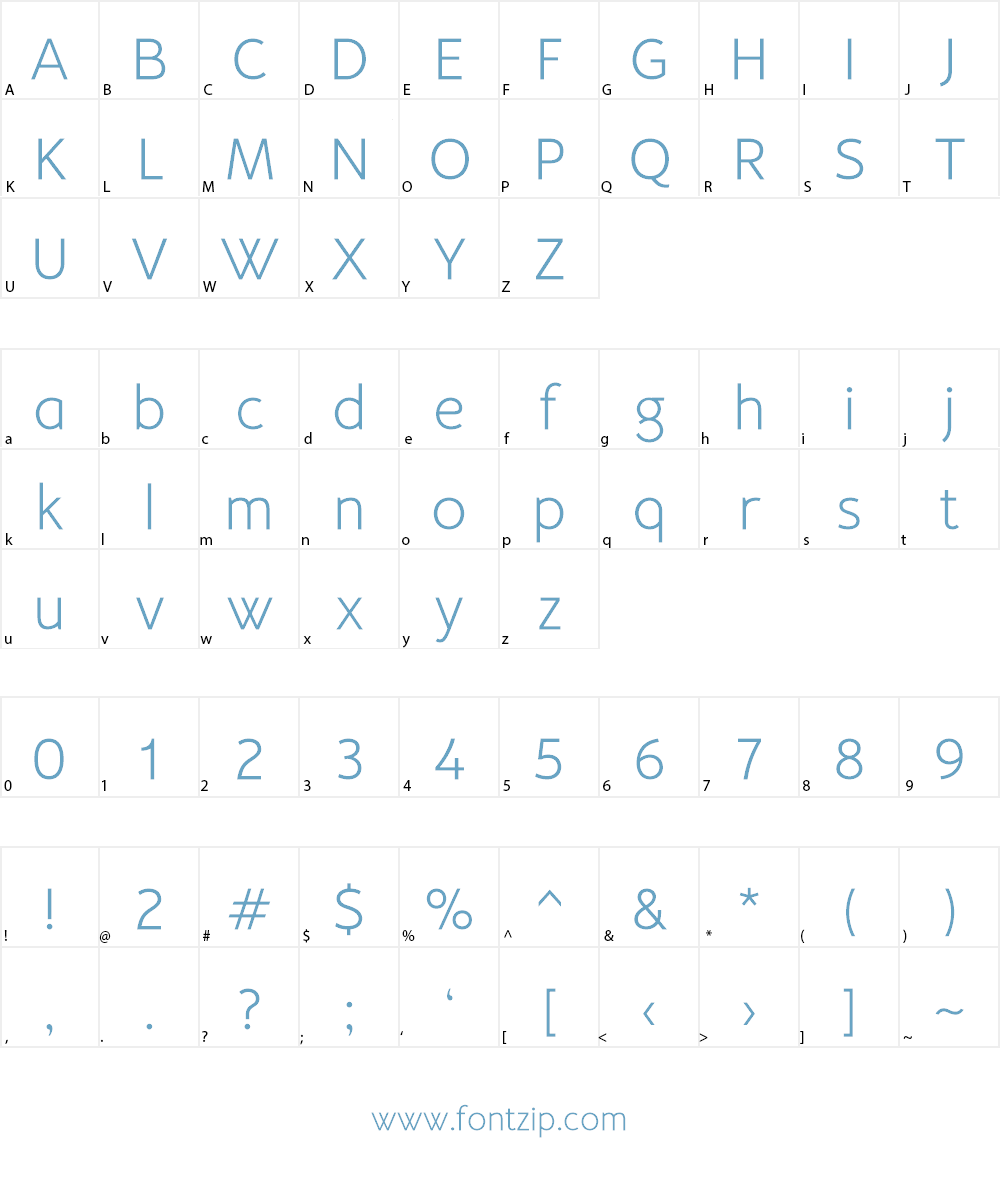
No name 37 is a free sans serif typeface with clean look. It comes with two fonts: Regular and Light weights, contais full set of uppercase and lowercase letters, numerals, alternates, supports multilanguage, including Extended Latin and Cyrillic